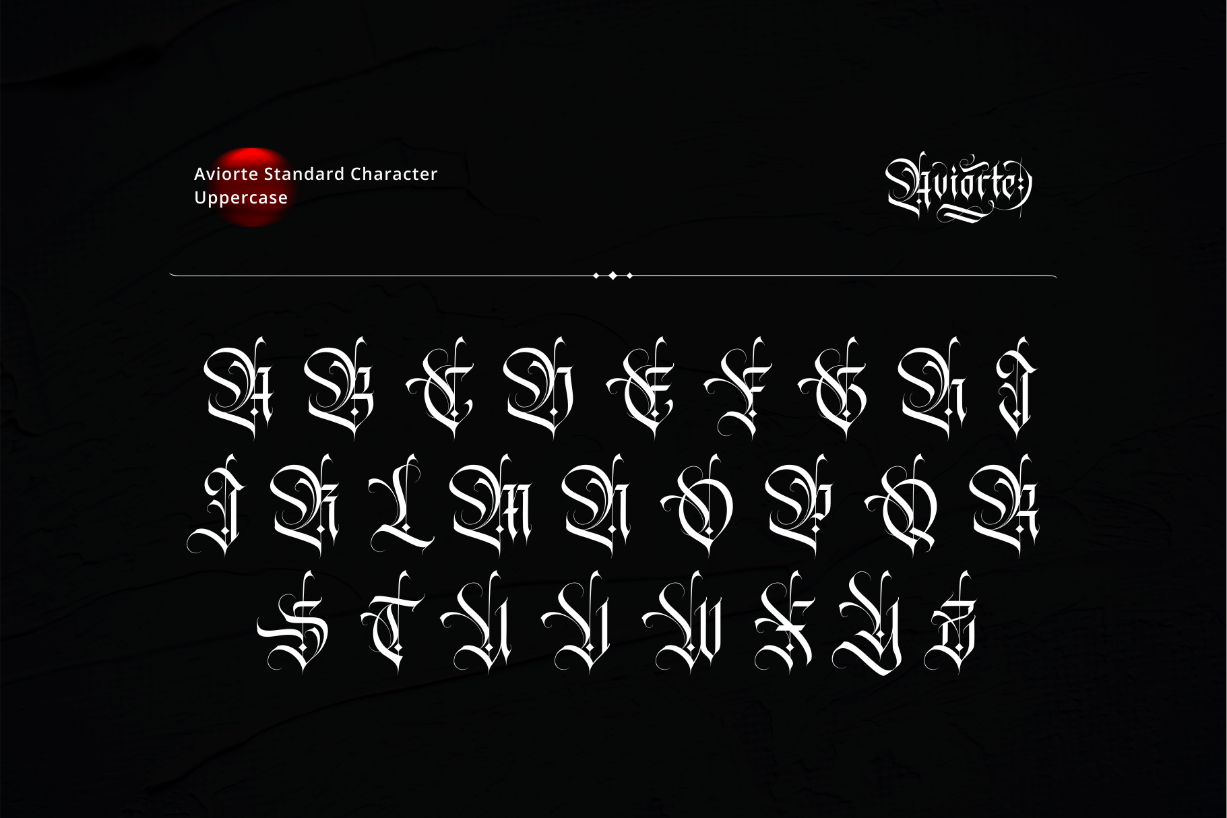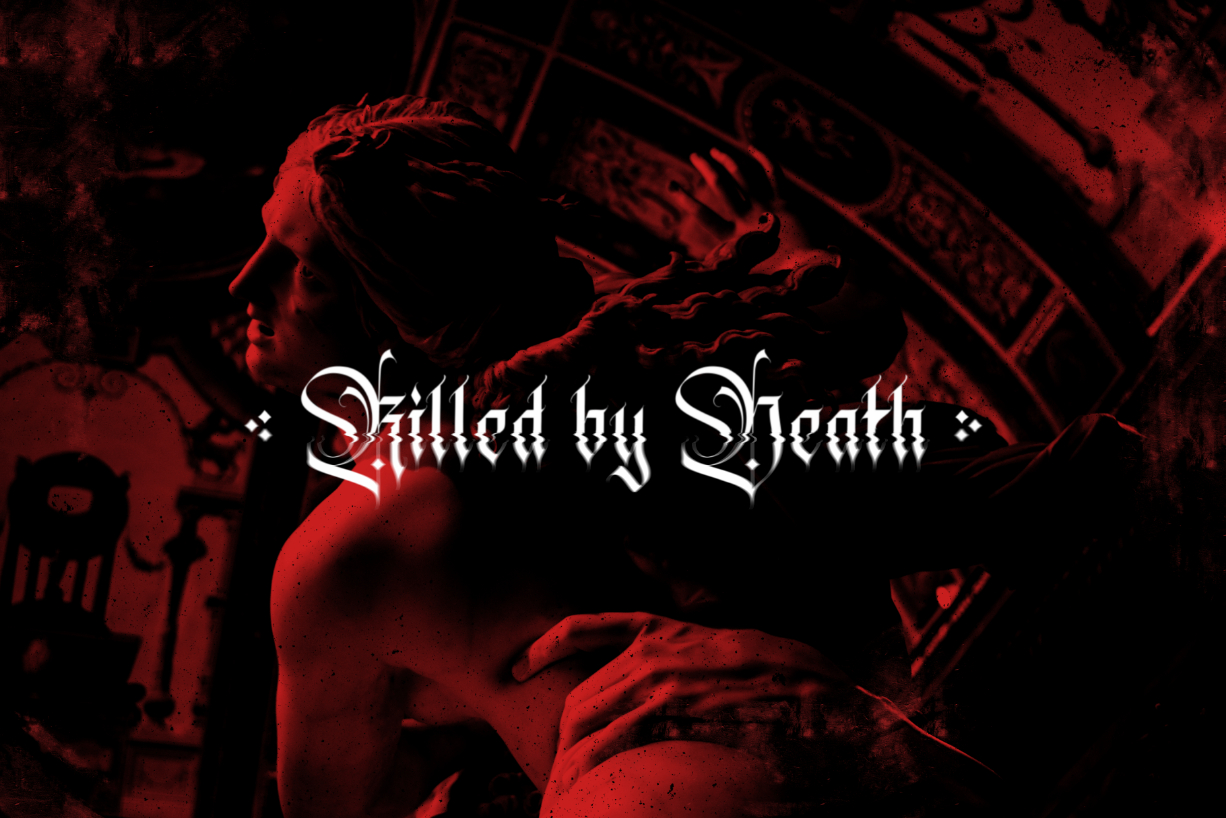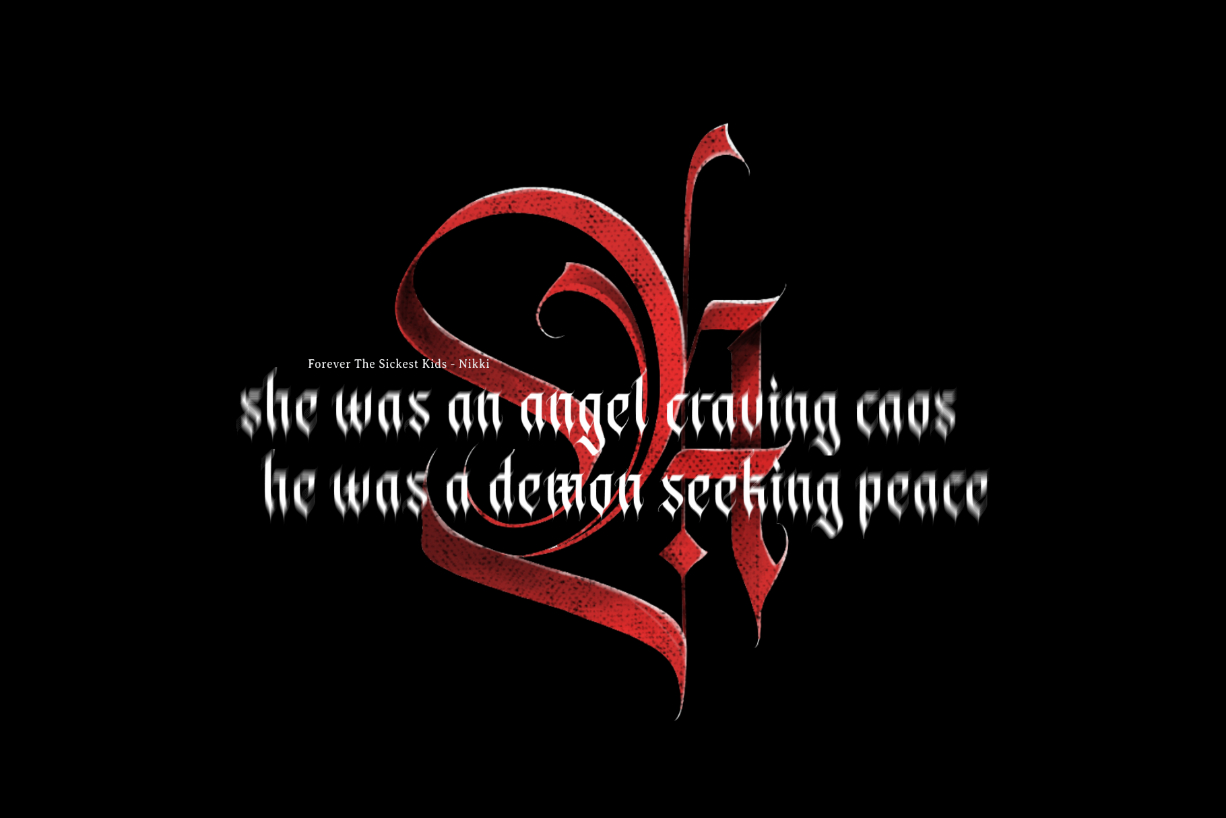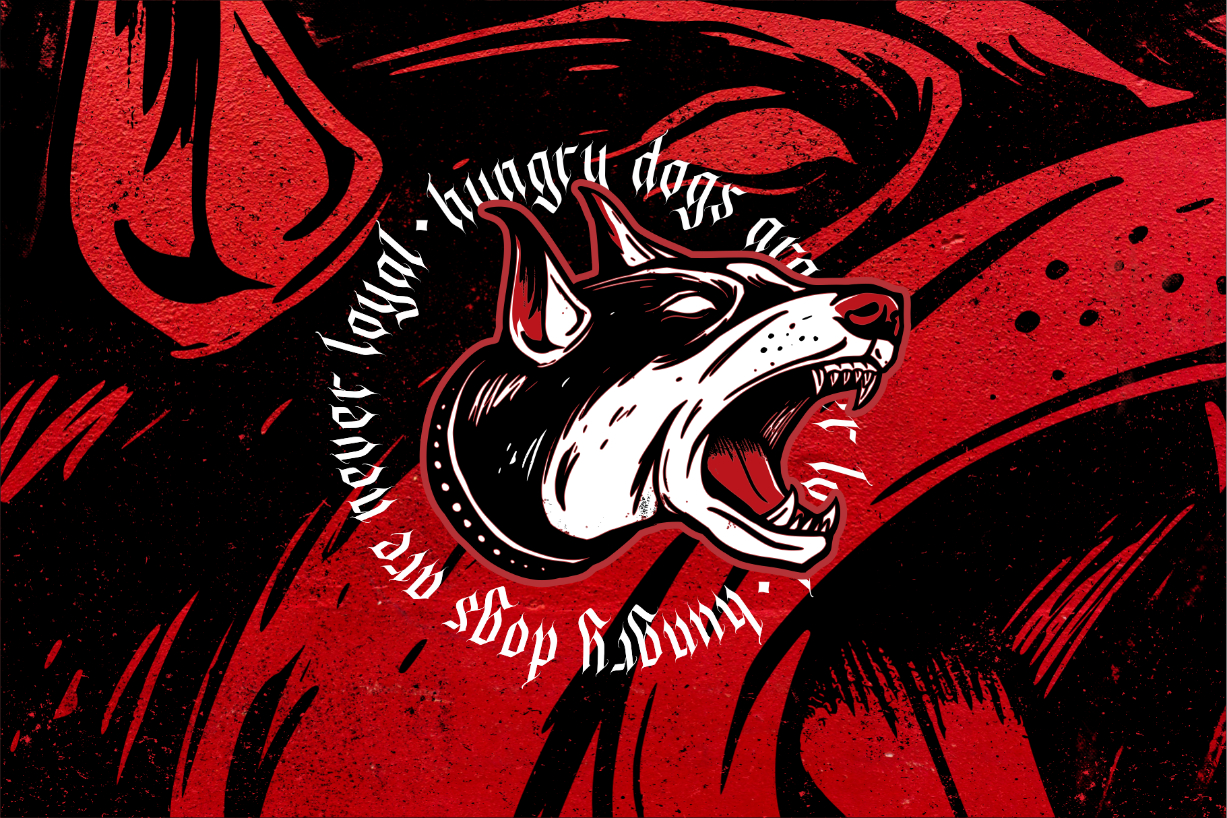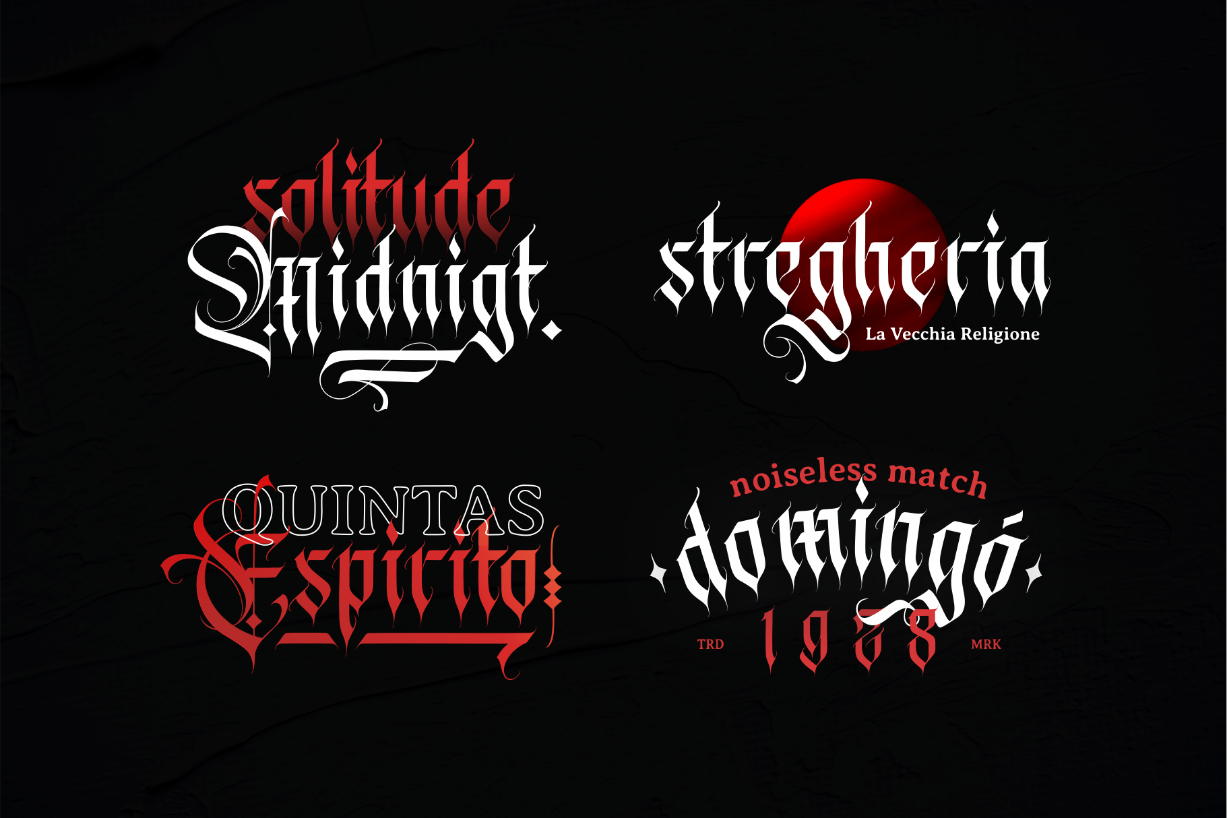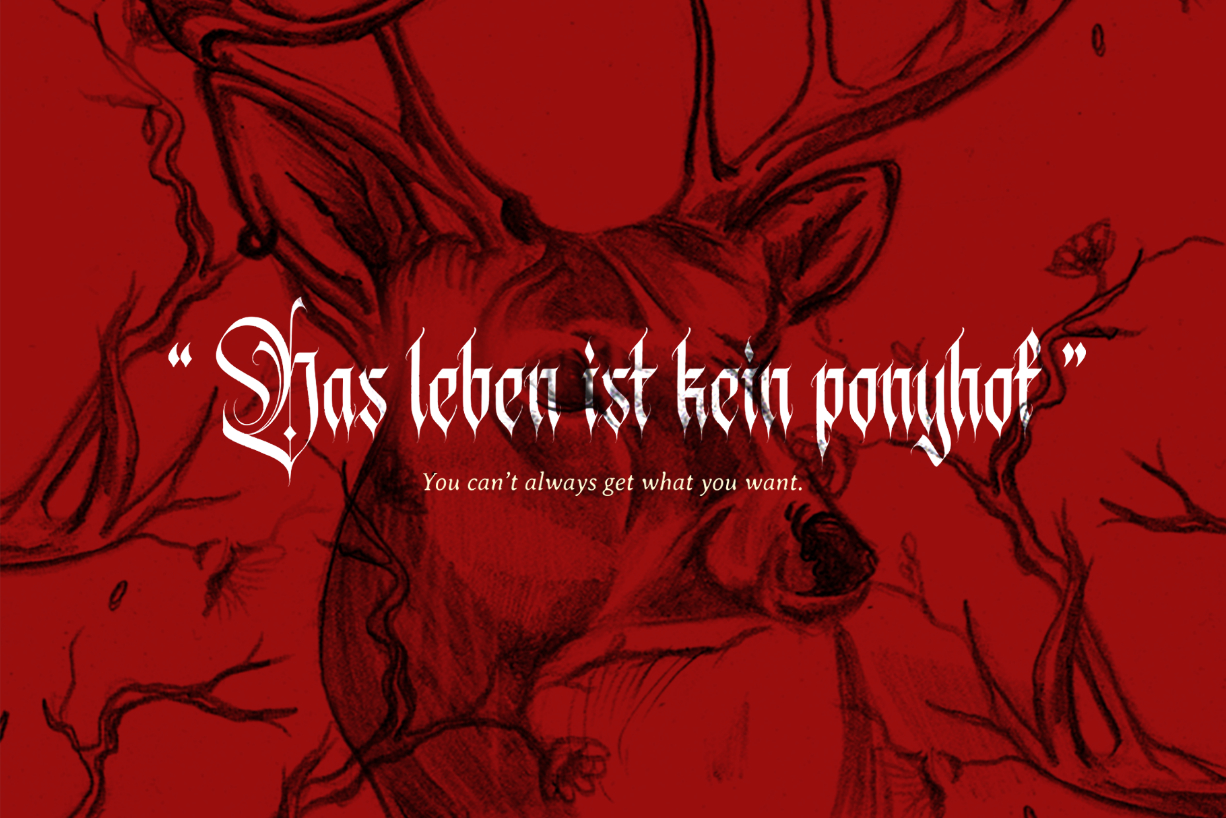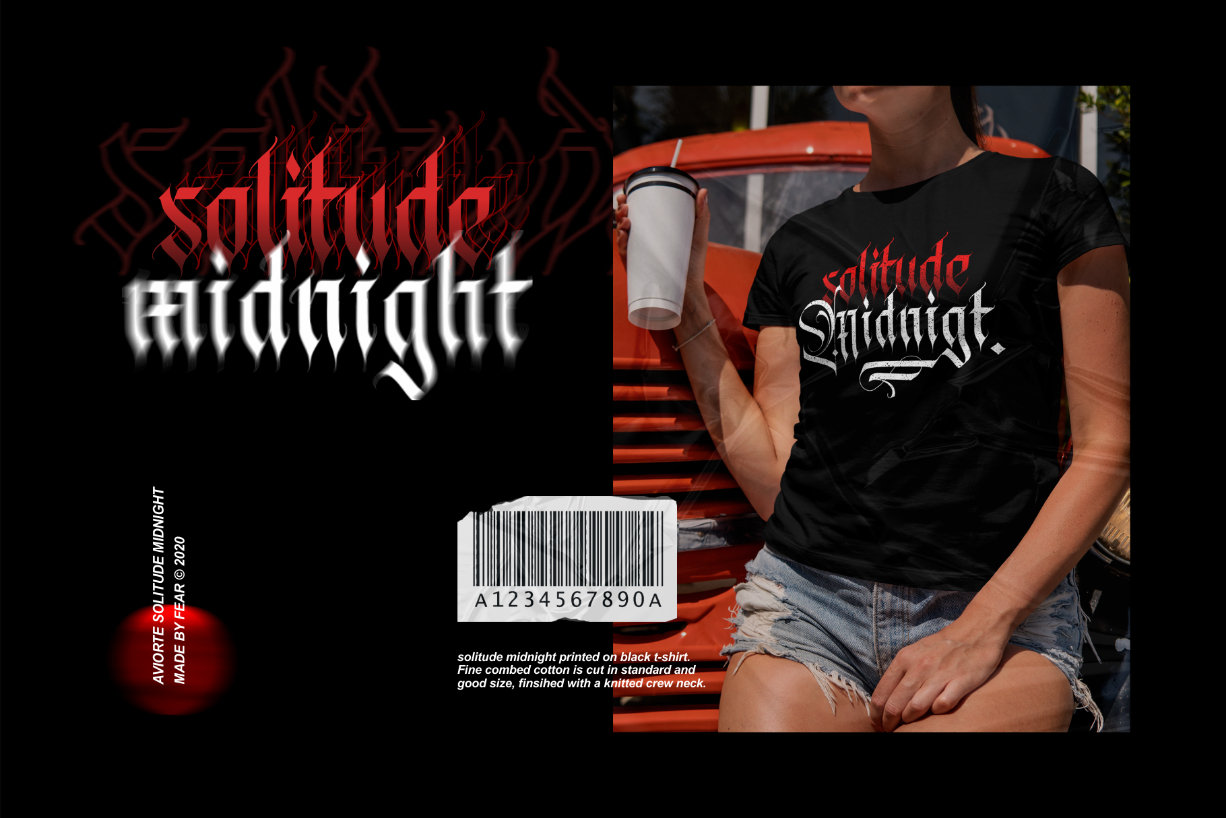
Aviorte Font
About Aviorte Font
Aviorte is a distinct, elegant blackletter font. With its neat and beautiful arrangement of letters, this typeface will look outstanding in both formal and non-formal designs.